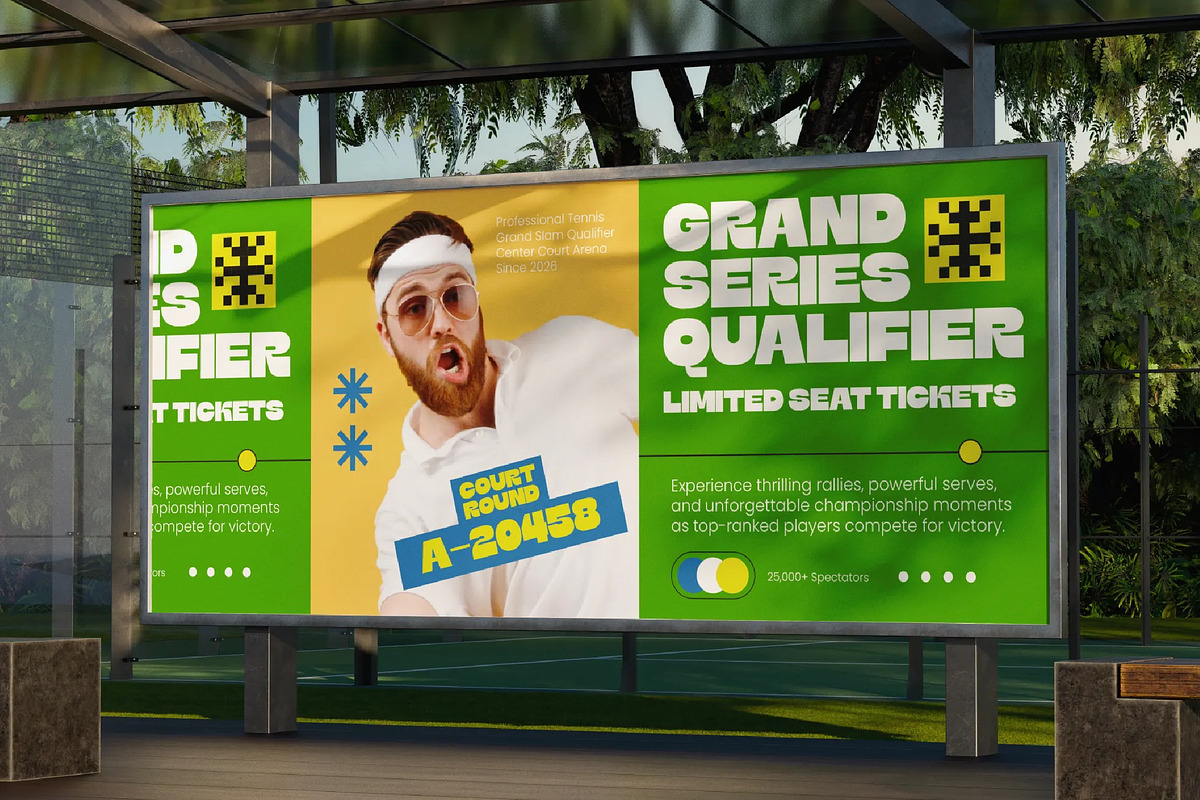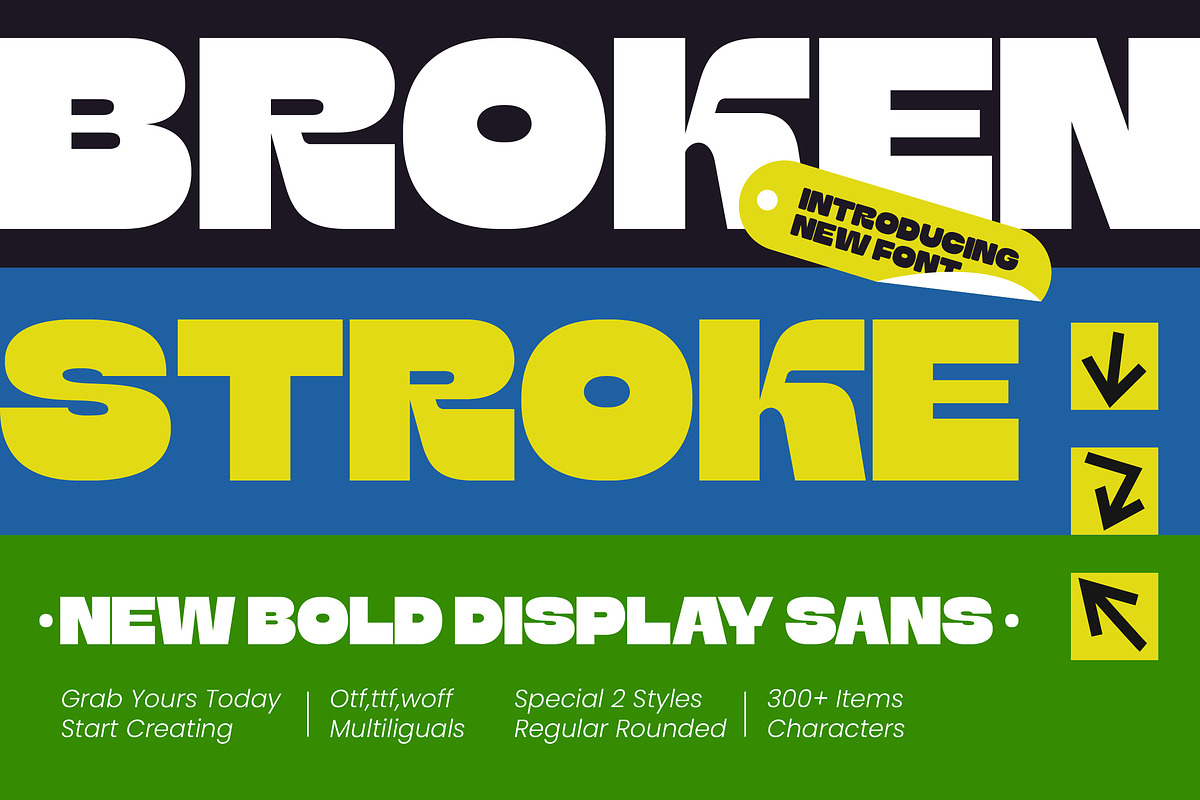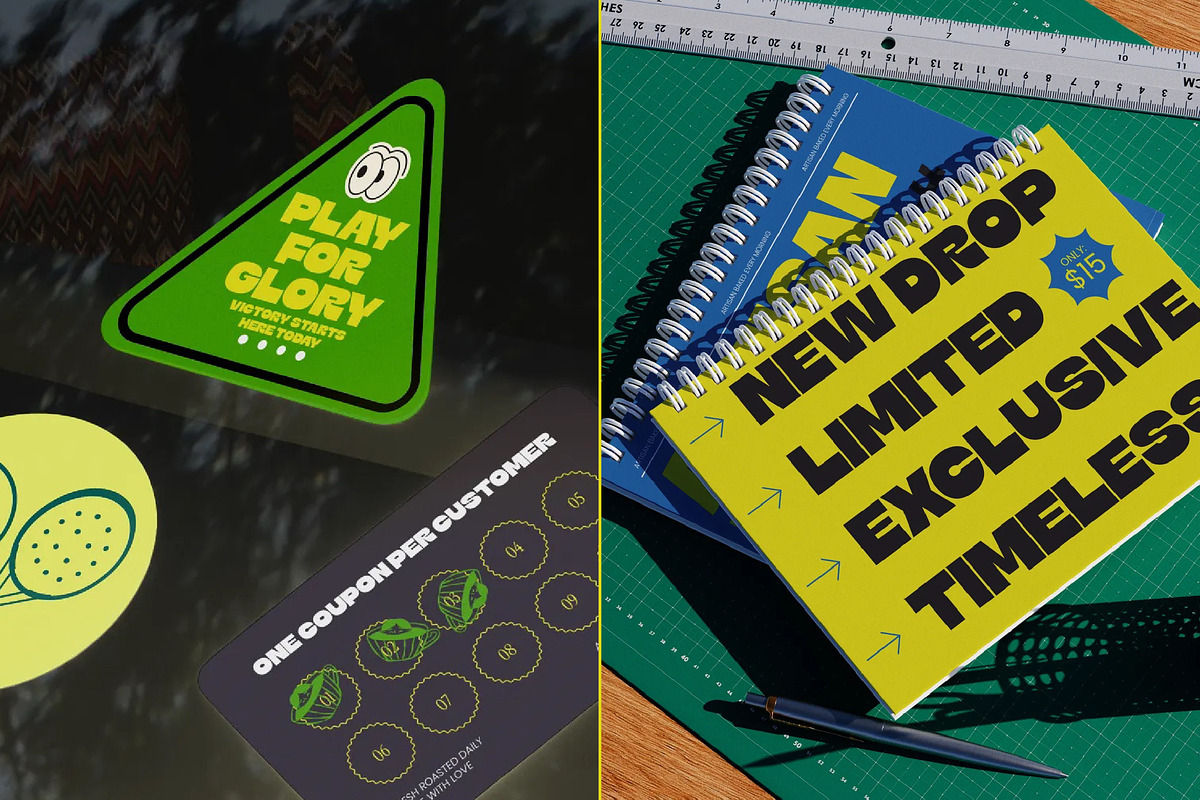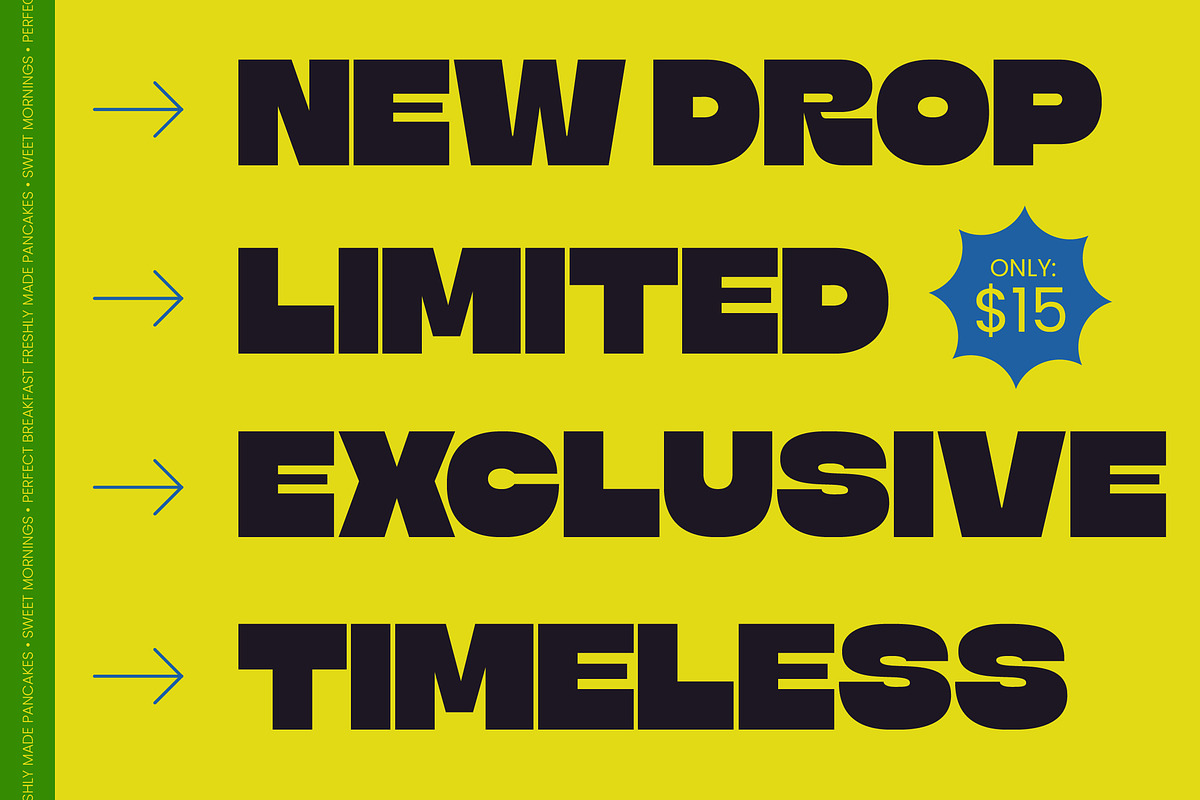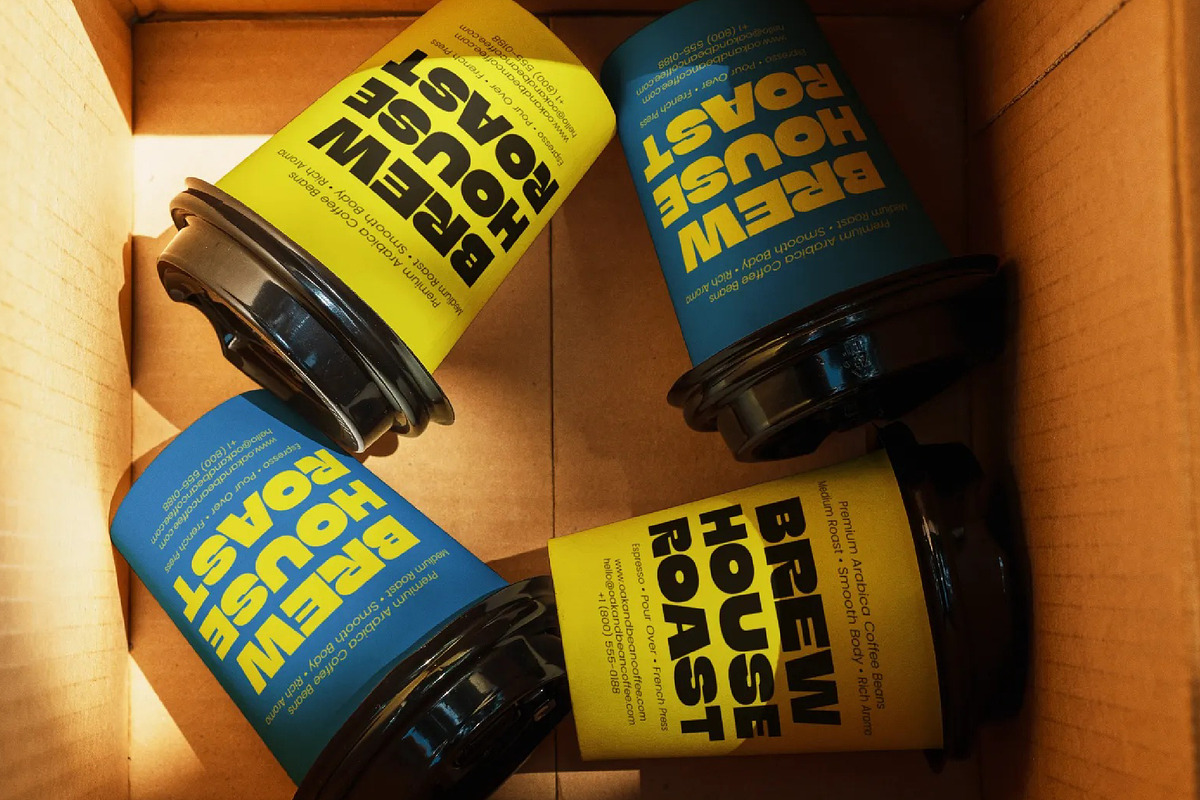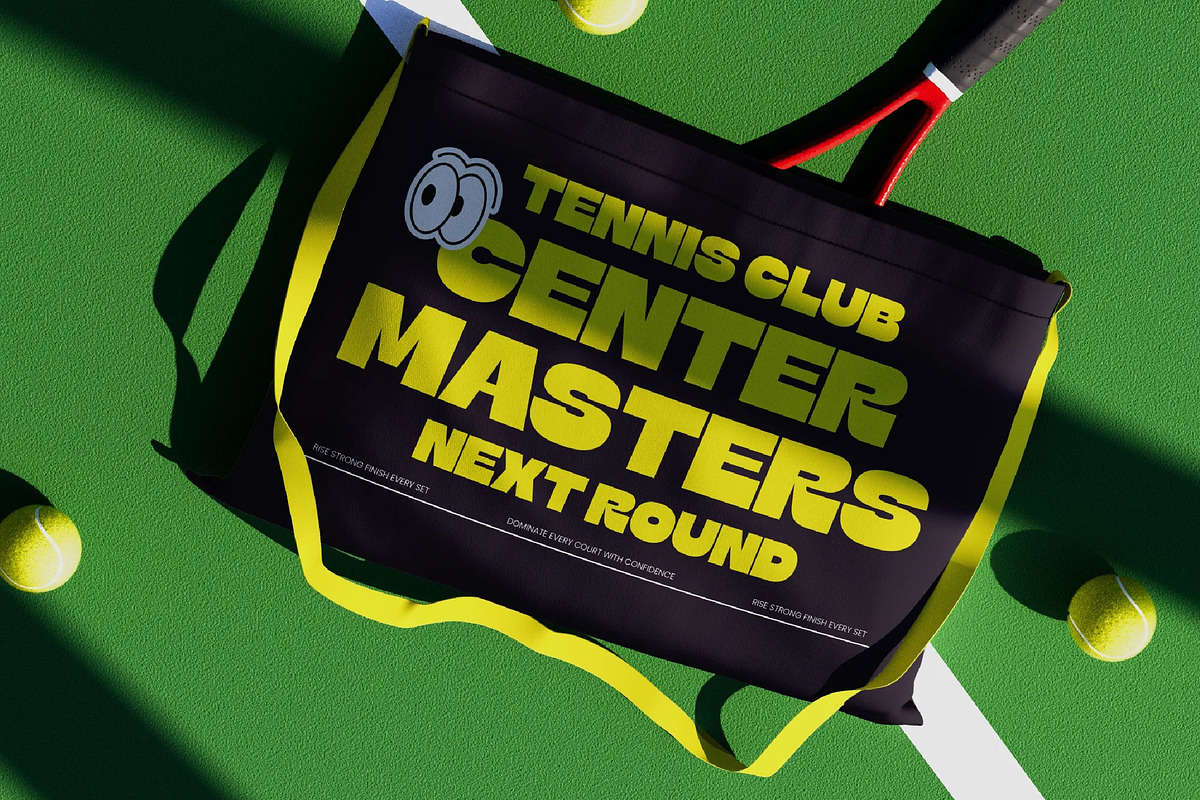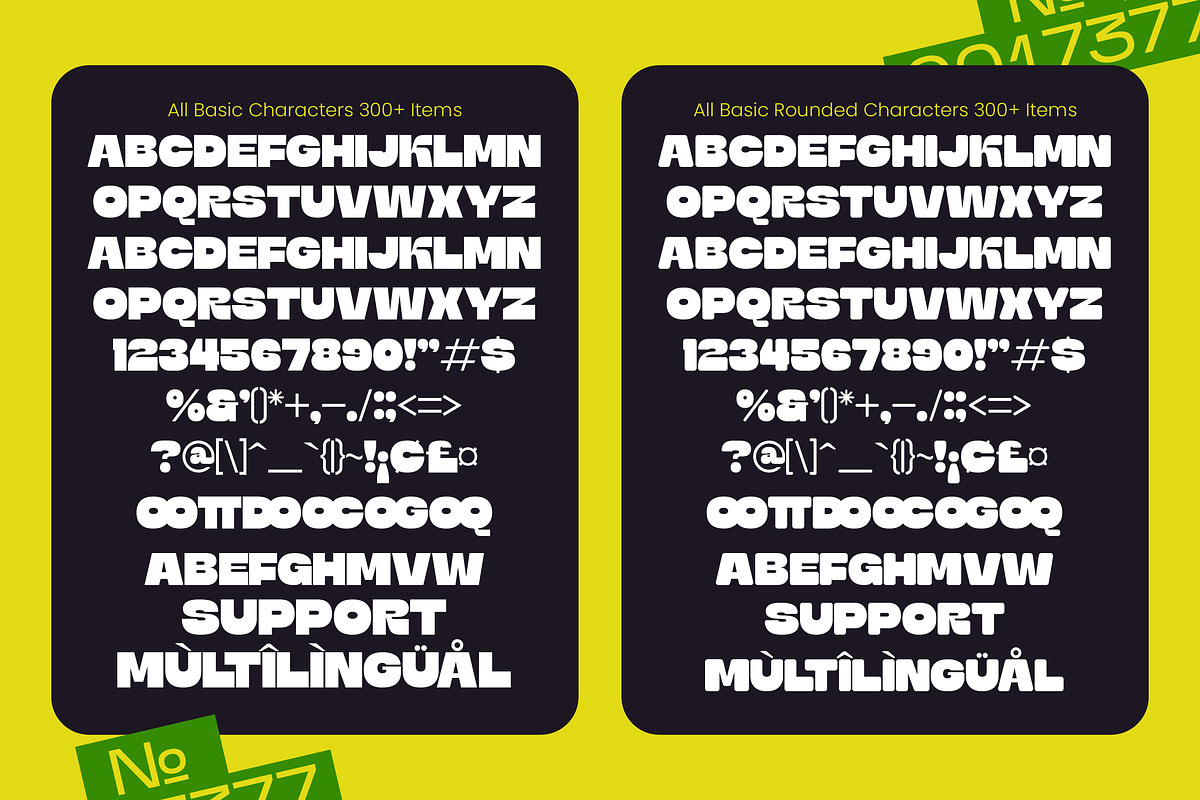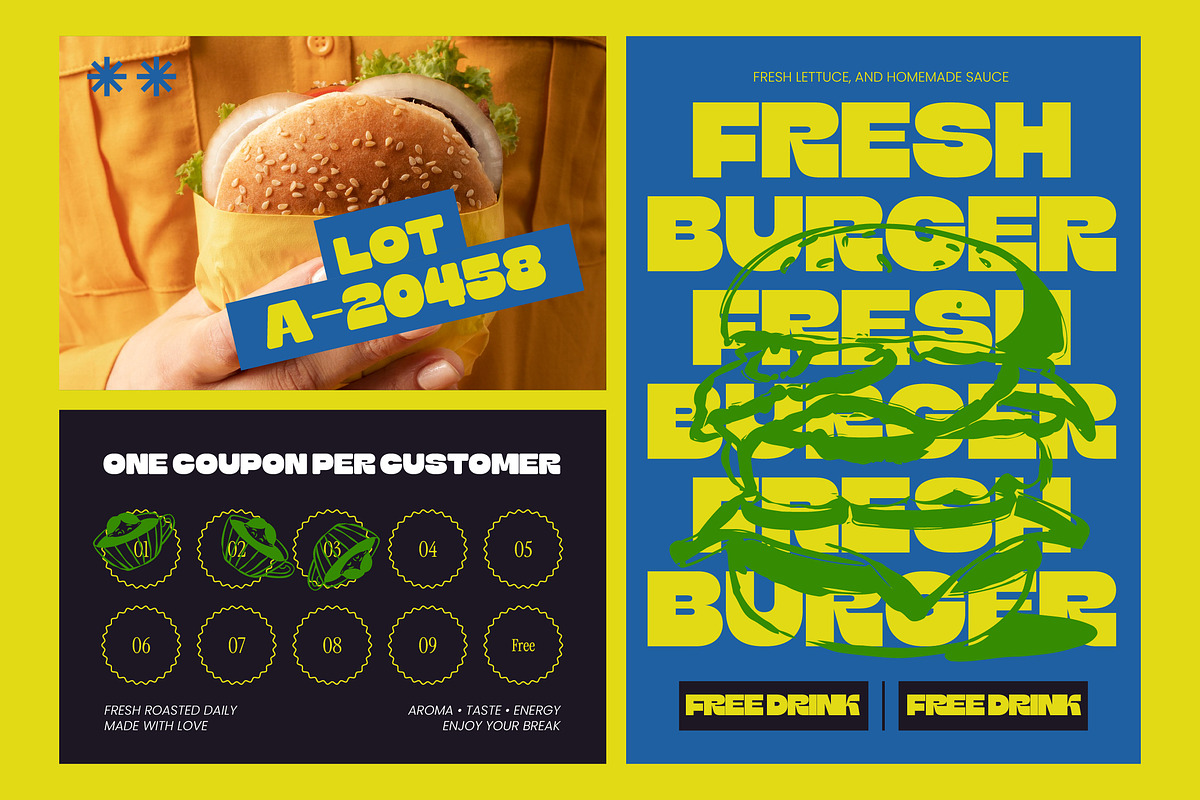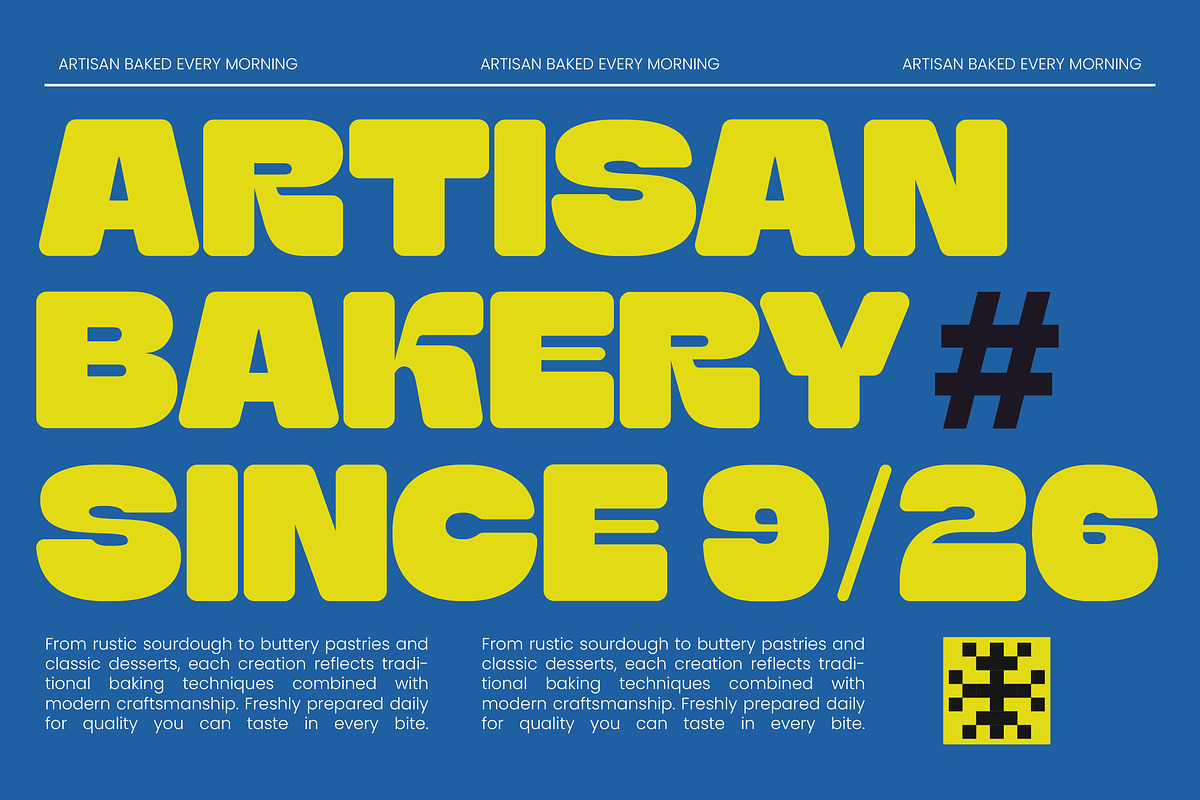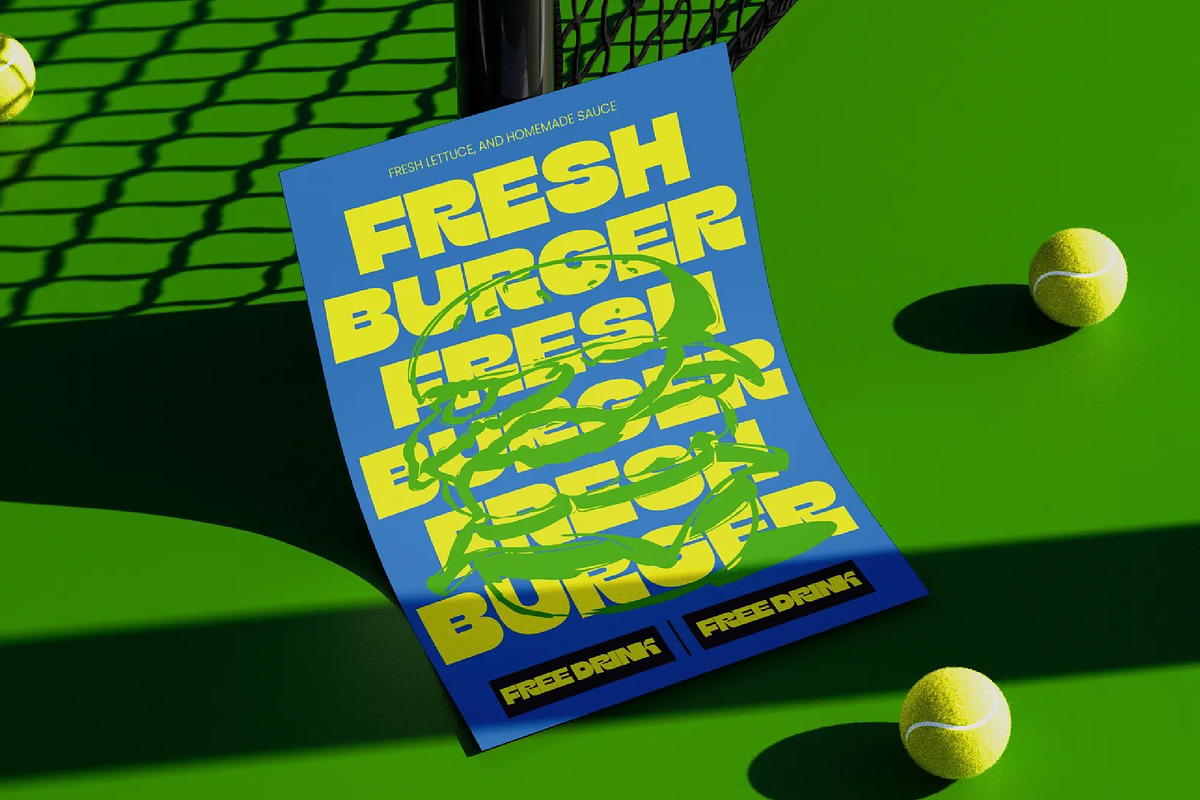
Broken Stroke New Bold Display Sans
Broken Stroke - New Bold Display Sans , Command attention with Broken Stroke - New Bold Display Sans, a powerhouse display typeface designed to dominate any visual space. Its ultra-bold construction and innovative geometric cutouts offer a modern aesthetic for high-end streetwear branding. This isn't just a font; it's a bold design statement that ensures your messaging remains unforgettable and impactful in a competitive market.
Unlock unparalleled creative potential with Broken Stroke - New Bold Display Sans, which is perfect for high-impact sports graphics, dynamic poster design, and luxury packaging. Its dominant visual weight and maximum legibility make it ideal for monumental logotypes and innovative social media campaigns that demand a contemporary edge. Whether you are crafting prominent headlines or editorial layouts, this font delivers the visual punch required for professional results.
Reach a global audience effortlessly with an expansive character set optimized for the modern age. With its extensive multilingual support, Broken Stroke - New Bold Display Sans adapts seamlessly across global markets, making it incredibly versatile for international projects. Including over 300 characters and two distinct styles like regular and rounded, it maintains brand consistency across various languages and ensures your international communication remains cohesive.
Elevate your designs today by integrating the distinctive personality of Broken Stroke - New Bold Display Sans into your creative workflow. This premium display sans is optimized for both print and digital environments, ensuring a sharp visual presence on everything from massive billboards to mobile screens. Invest in this timeless typographic asset to combine structural integrity with raw energy and push your creative boundaries to the next level.